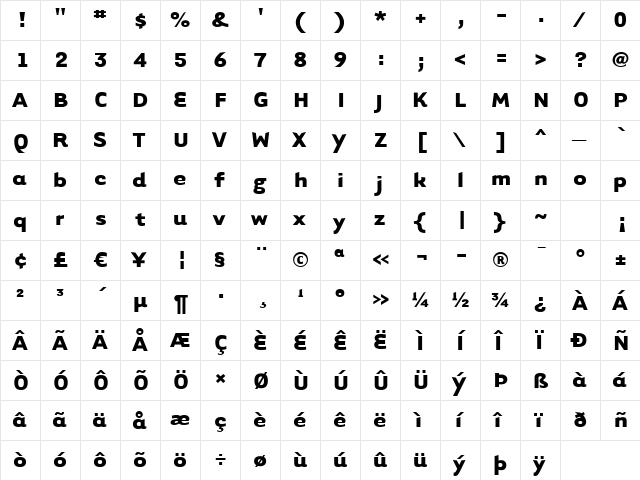
TarzanaWideBold Regular
Design Context for TarzanaWideBold Typeface
TarzanaWideBold takes a measured approach to typography — its balanced proportions and neutral character make it a reliable workhorse for both digital and print work. The heavy weight commands attention and anchors typographic hierarchies.